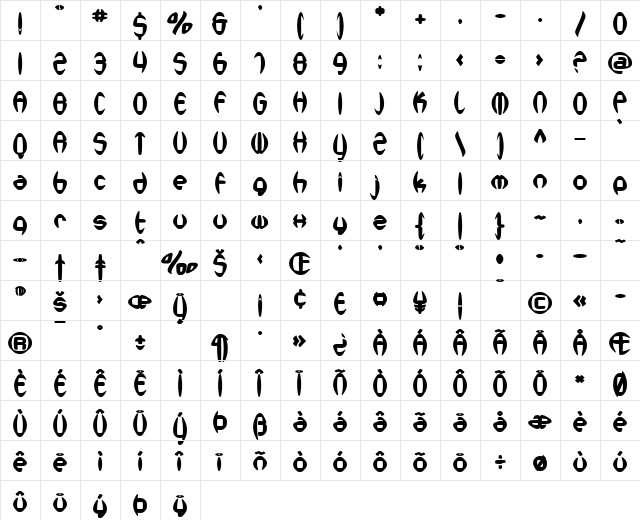
Complete SF Synthonic Pop Bold glyph index. Displaying only characters natively supported by SF Synthonic Pop Bold font.
SF Synthonic Pop is a composed and adaptable typeface that performs quietly and consistently across a wide range of design contexts. Its bold stroke weight gives it real presence on the page.